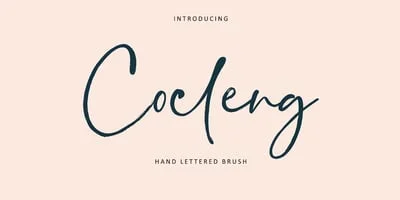
Cocleng Brush Font
Cocleng Brush Font presents a vibrant and energetic typeface that captures the raw spontaneity and artistic freedom of traditional brush painting techniques. Please note that you must purchase this font for commercial use, though you can download it for free for testing purposes.
This dynamic font excels in various design applications including street art murals, creative workshop branding, artistic poster designs, craft product packaging, handmade business logos, paint studio signage, artistic event promotions, and creative portfolio headers. Its authentic character makes it perfect for projects requiring organic artistic expression with contemporary creative energy.
Cocleng Brush Font is exciting because it preserves the natural flow and textural richness of actual brush strokes, featuring irregular line weights, organic paint textures, and spontaneous character variations that bring digital typography to life. The font captures the essence of artistic creation while maintaining modern versatility and professional quality across different creative applications.
The Cocleng Brush Font family includes multiple expressive variations: Regular, Bold, Rough, and Textured styles. Some versions feature paint drip effects, brush splatter elements, and alternative character sets that enhance the handcrafted artistic aesthetic. These family members provide designers with comprehensive tools for creating authentic and visually striking brush-painted compositions.
Whether you're developing artistic branding, creative projects, or handcrafted product designs, Cocleng Brush Font delivers exceptional authenticity and creative flair. This font transforms standard text into compelling artistic statements that communicate creativity and passion with distinctive brush-painted character that defines contemporary artisanal design excellence and creative expression.